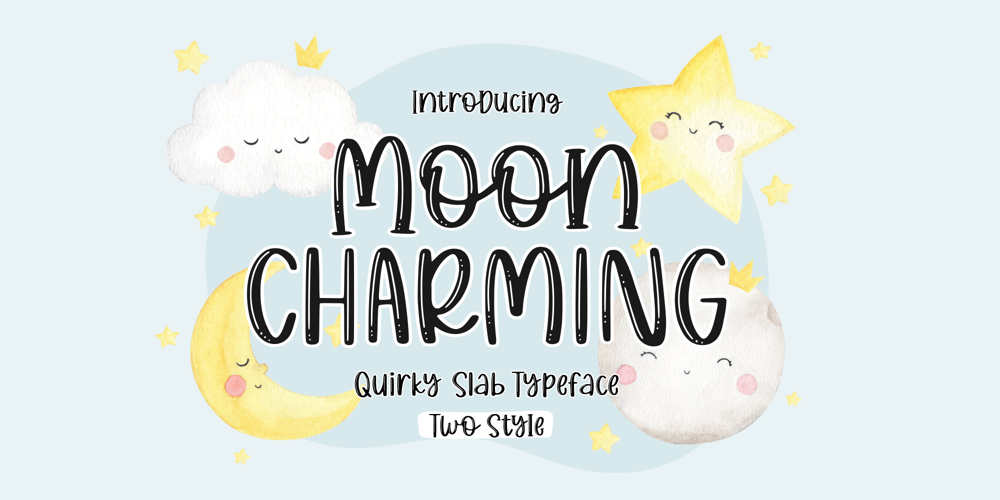
Moon Charming Font Family was designed by Fachrizal Yusuf and published by Allouse Studio. Moon Charming contains 2 styles and family package options. Proudly Presenting, Moon Charming a Quirky Slab Typeface.Moon Charming is perfect for any titles product packaging, branding project, megazine, social media, wedding, or just used to express words above the background.Moon Charming come with two styles, regular and slab. Each style come with Multi-Lingual Support.Enjoy the font, feel free to comment or feedback, send me PM or email. Thank You!